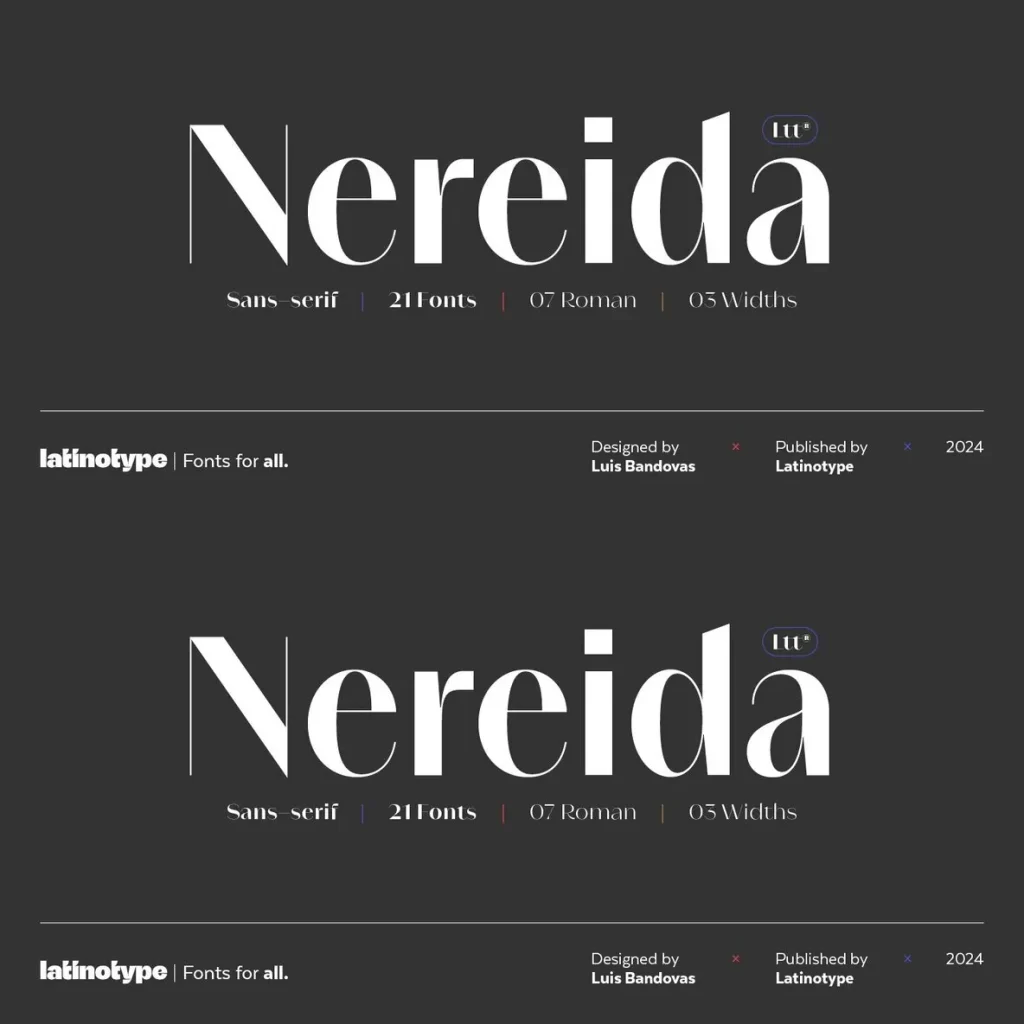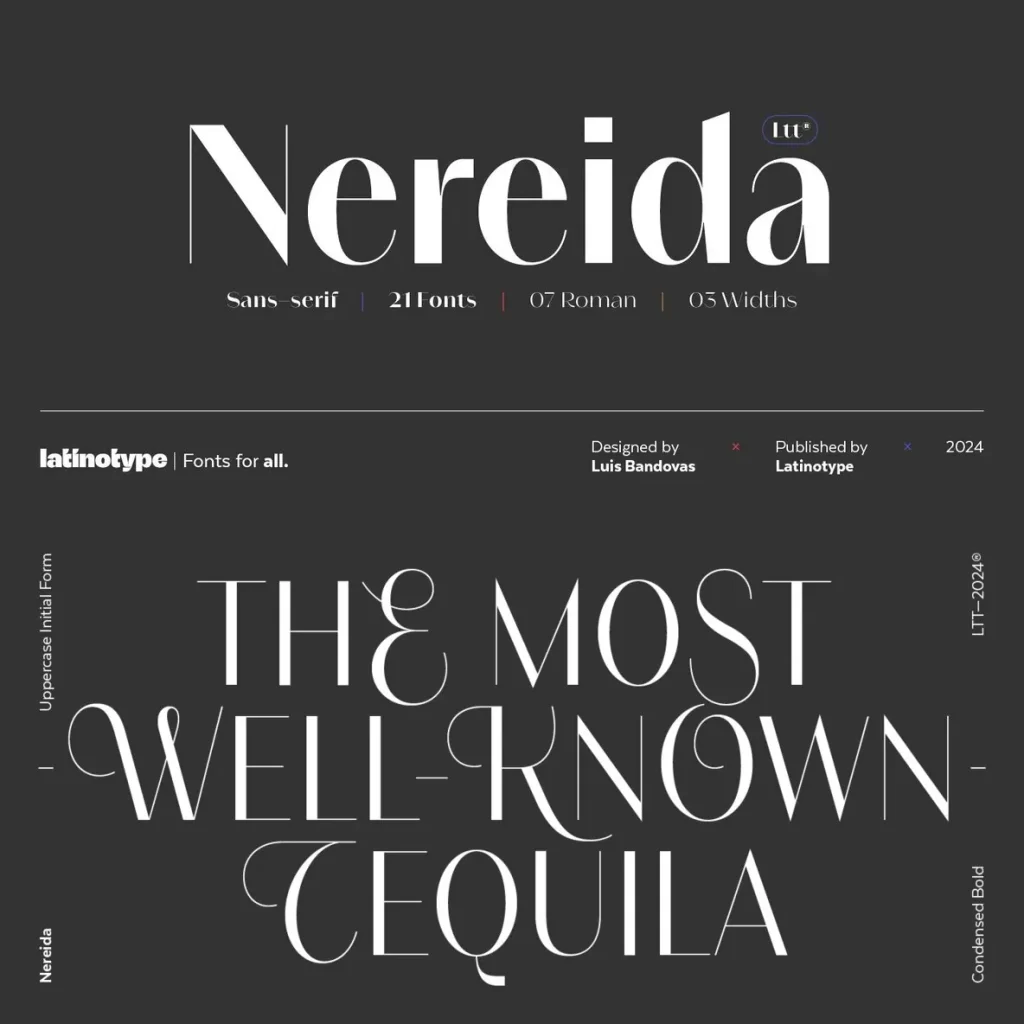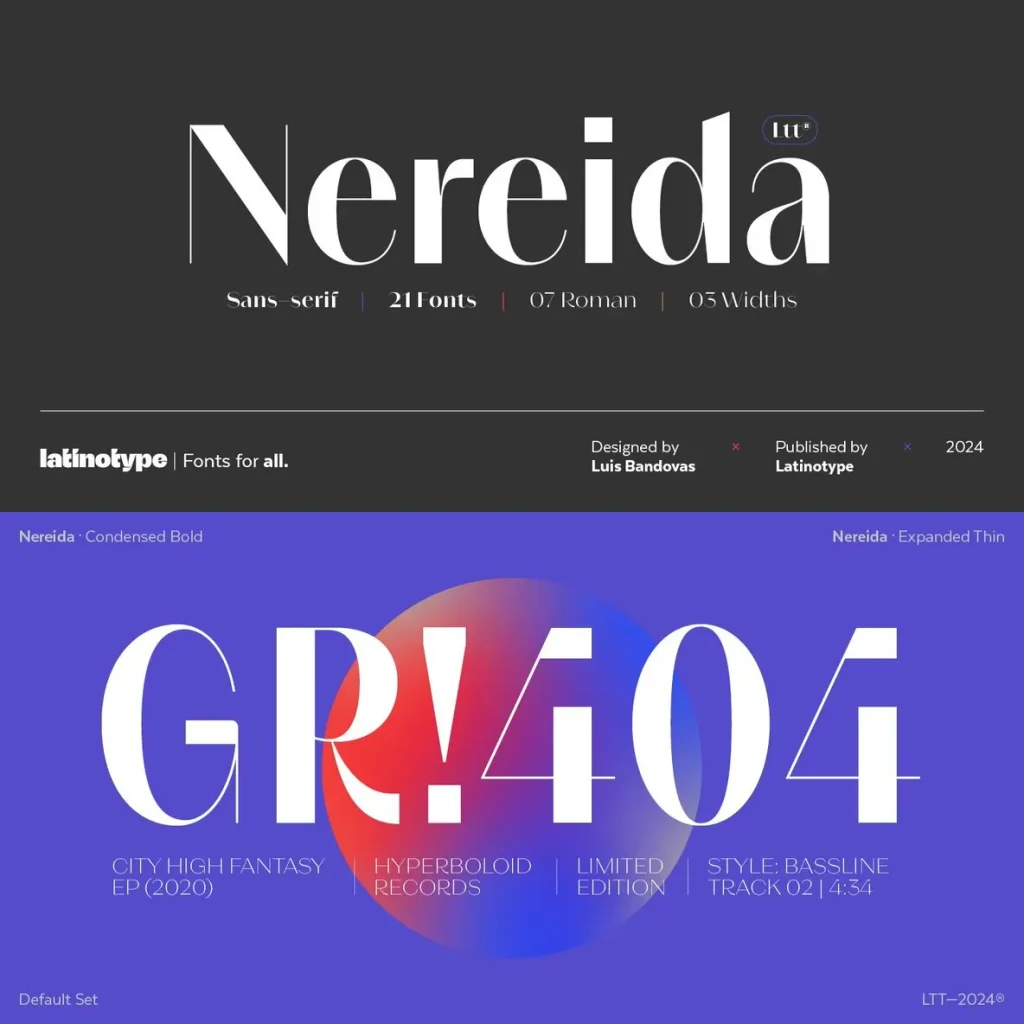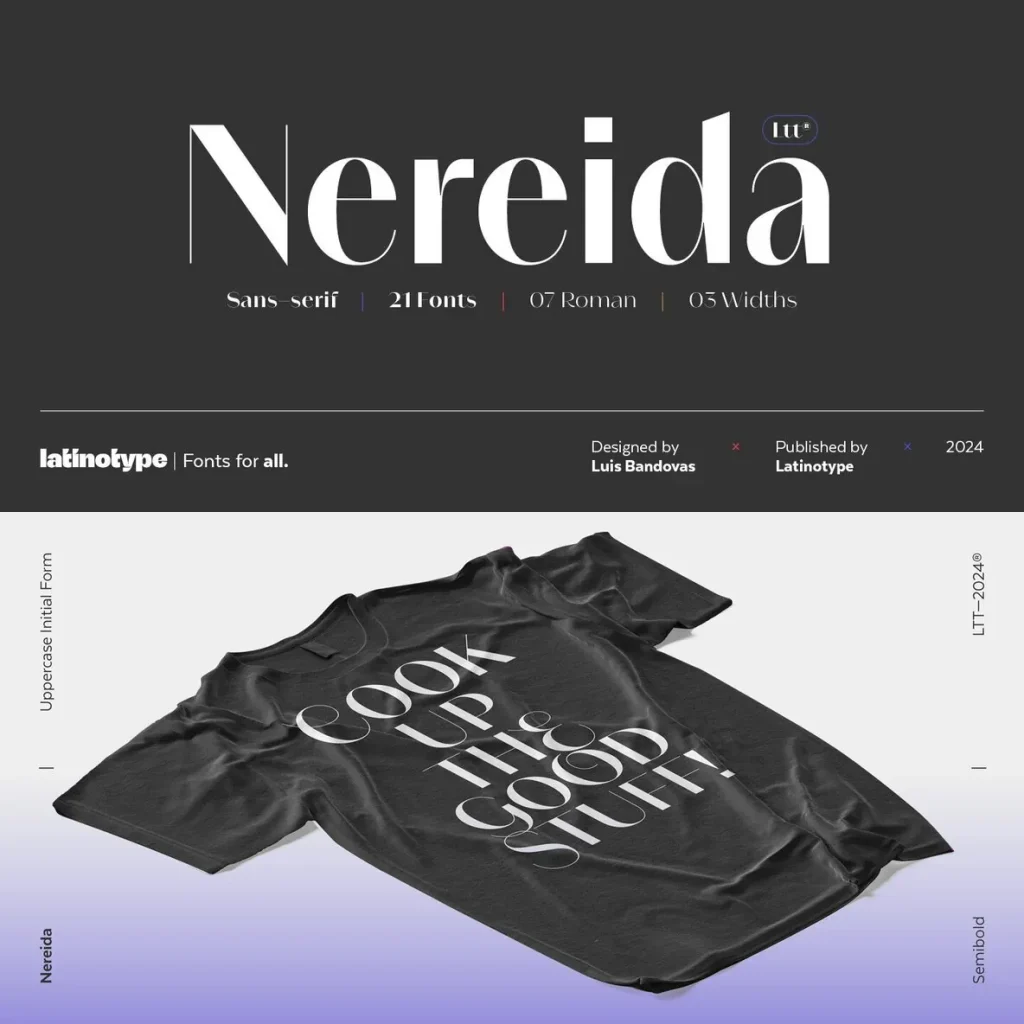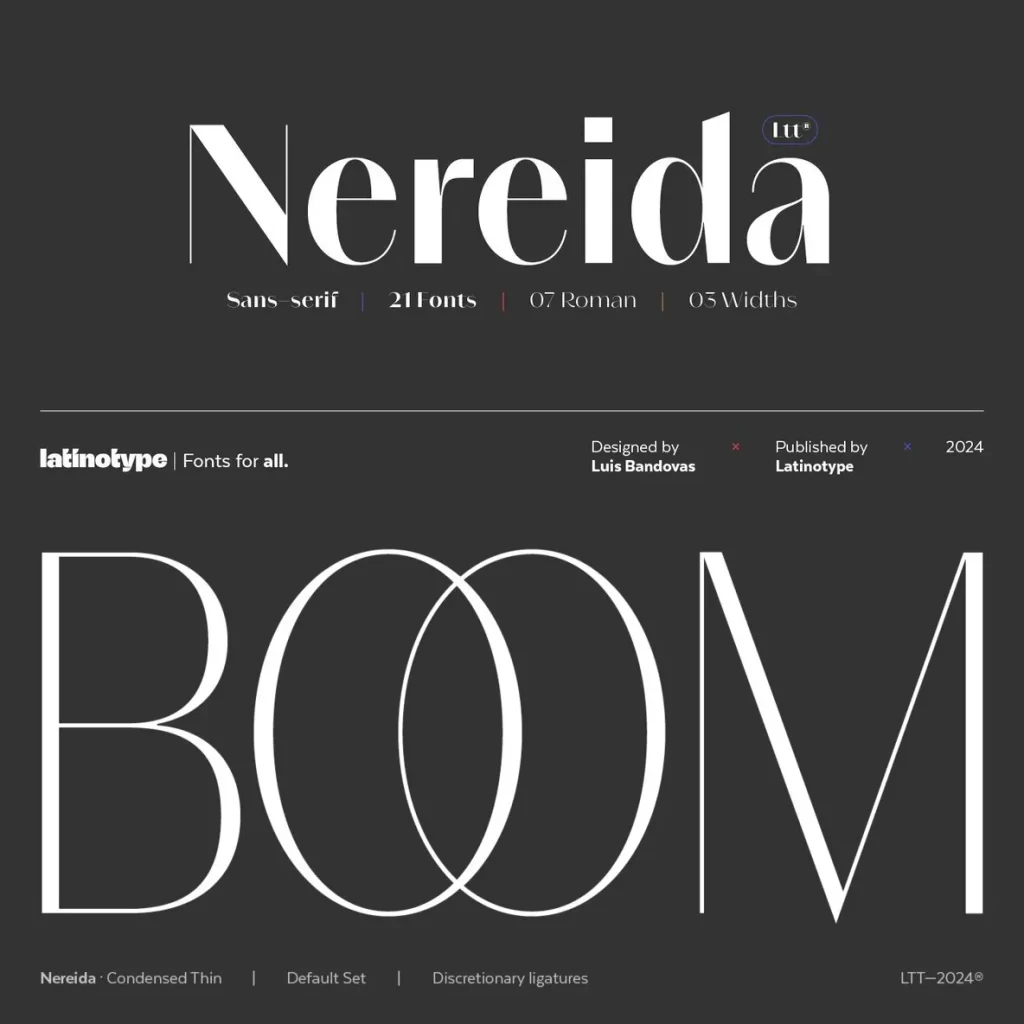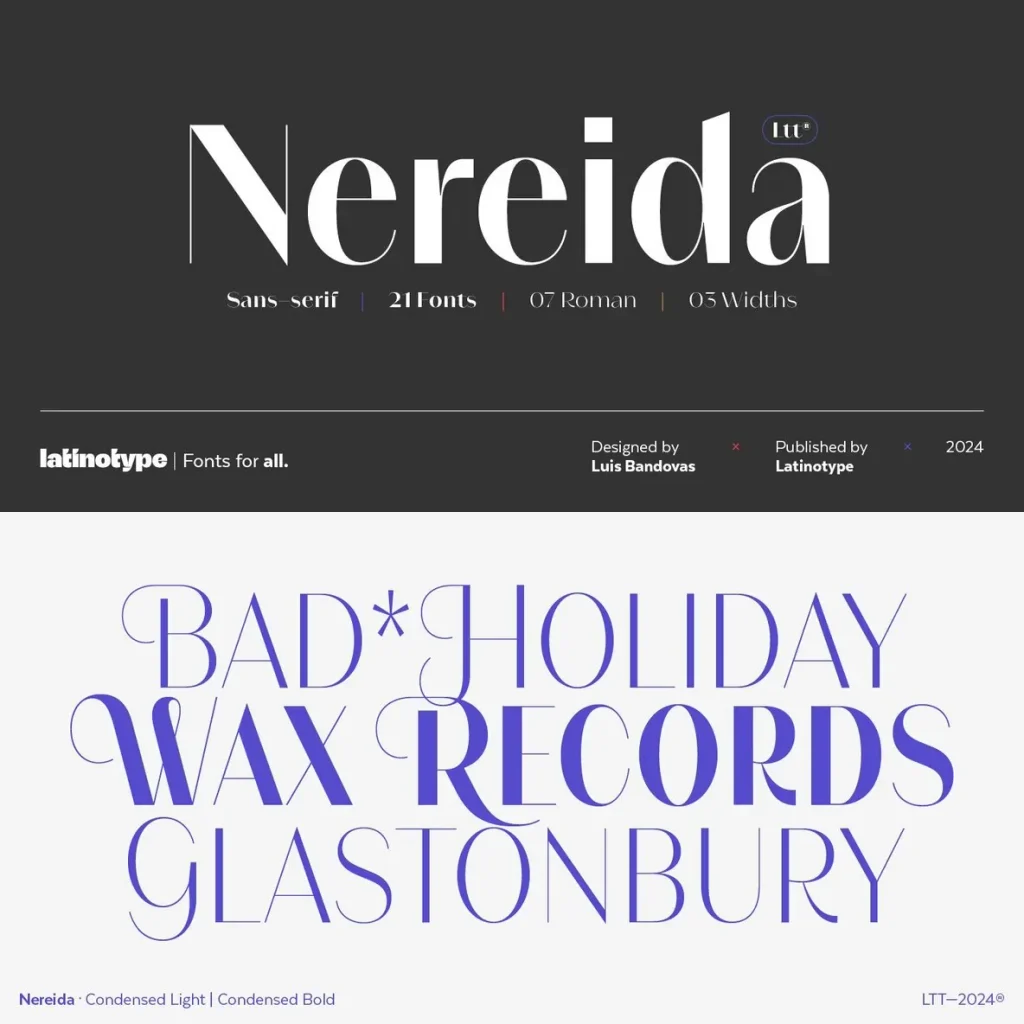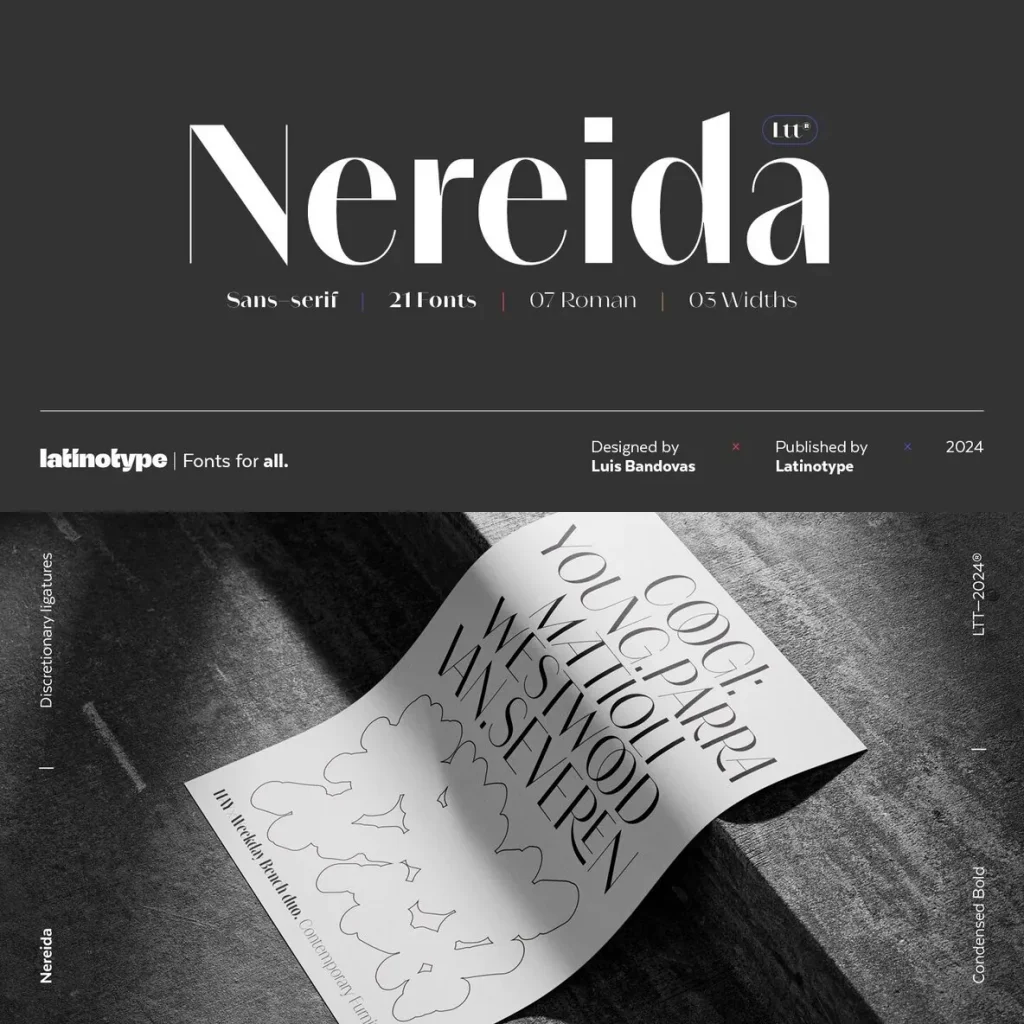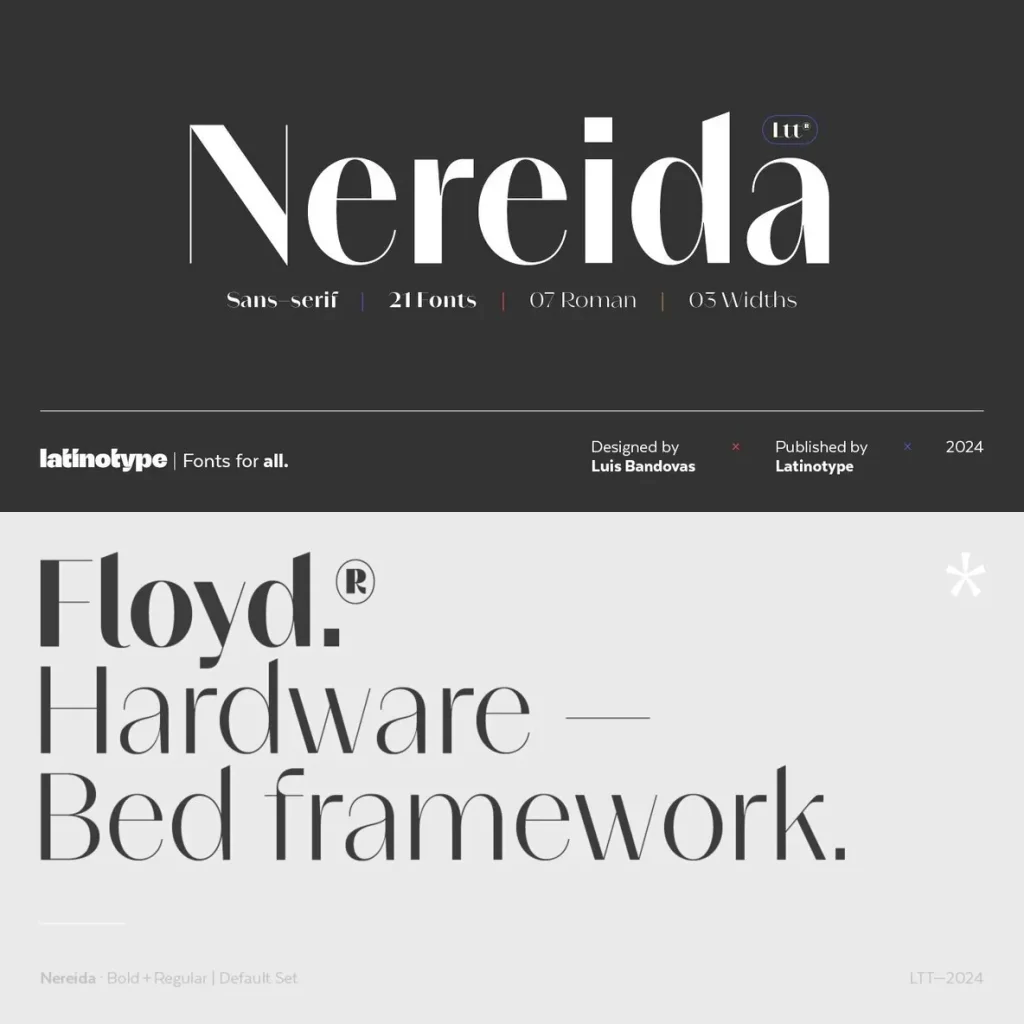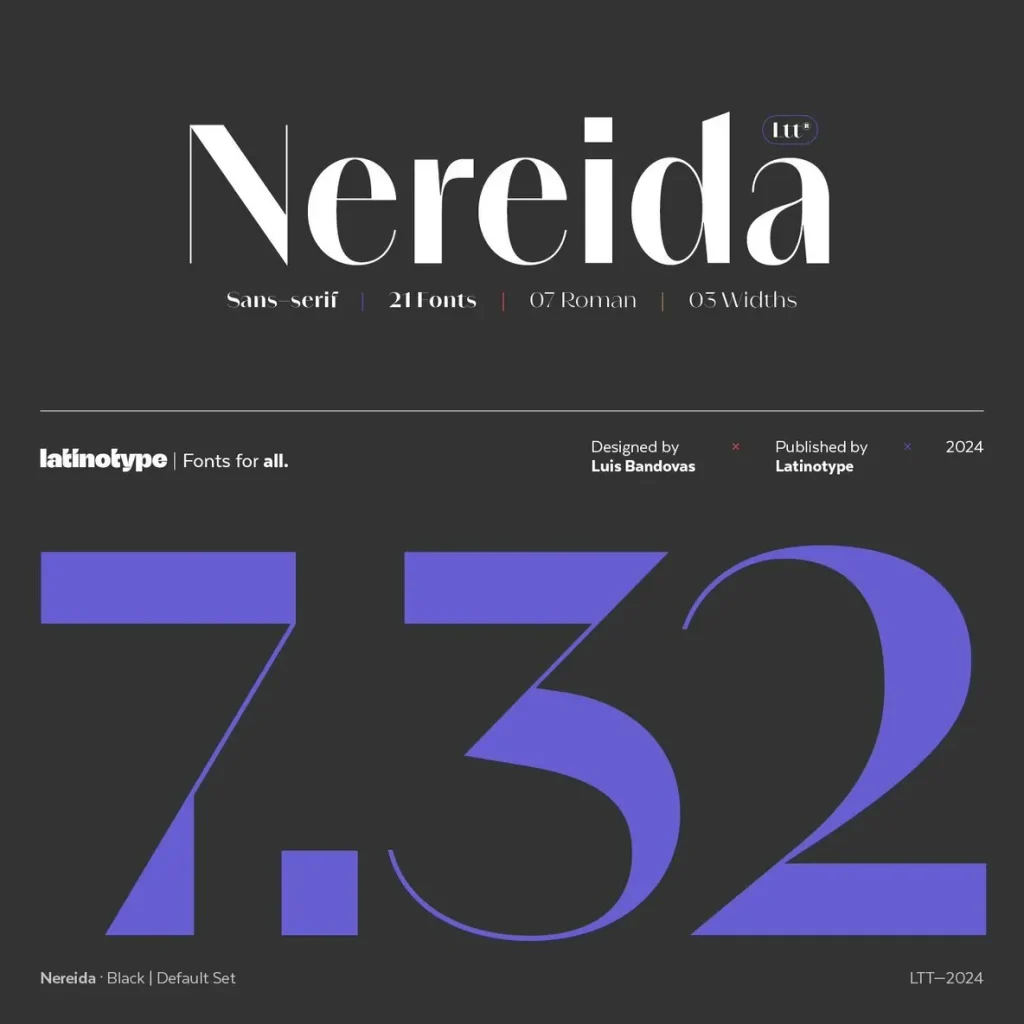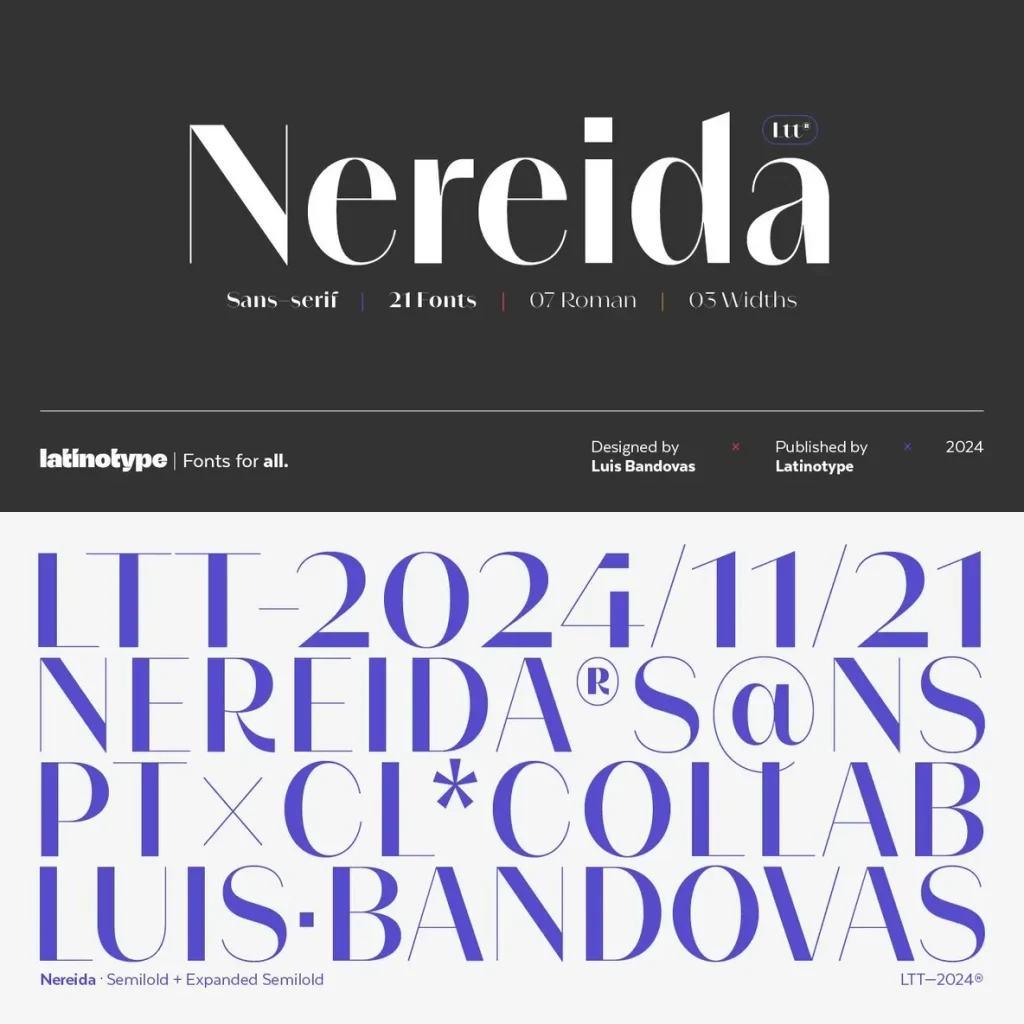
Nereida Typeface: Refined High-Contrast Elegance
Nereida is a sophisticated, luminous typeface with a distinctively delicate structure. Its high contrast and finely-tuned proportions make it ideal for elegant headings, editorial layouts, and creative branding. With a versatile character set, Nereida adapts smoothly across luxury packaging, magazine titles, and contemporary web design.
Features
High-contrast letterforms designed for visual impact
Gracefully crafted curves and refined serifs
Versatile enough for both display headlines and refined body copy
Expressive personality suitable for creative projects
Each glyph in Nereida is thoughtfully designed to provide both clarity and style, giving your work a polished, memorable appearance. Designers who value precision and sophistication will find it an excellent addition to their typographic toolkit.